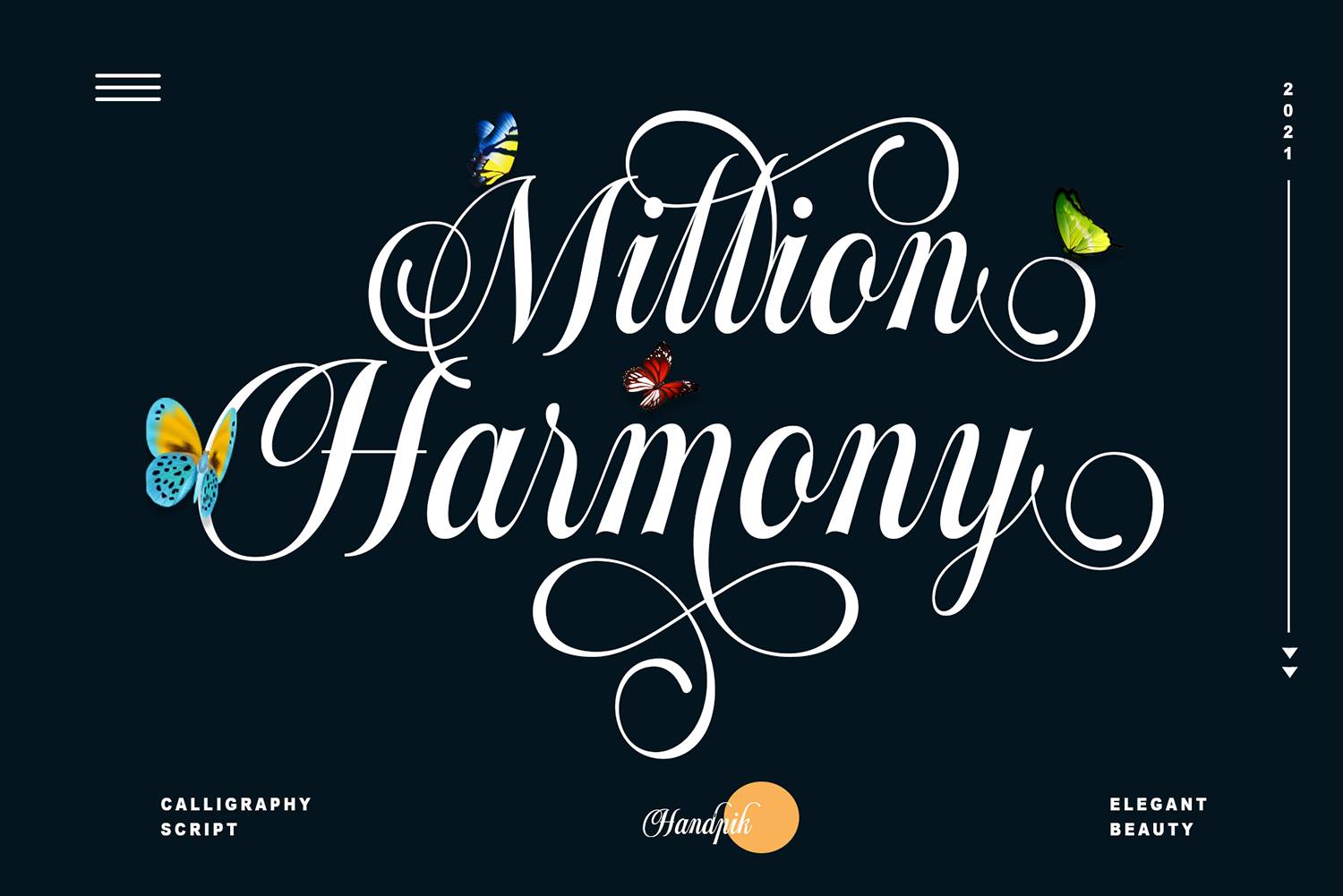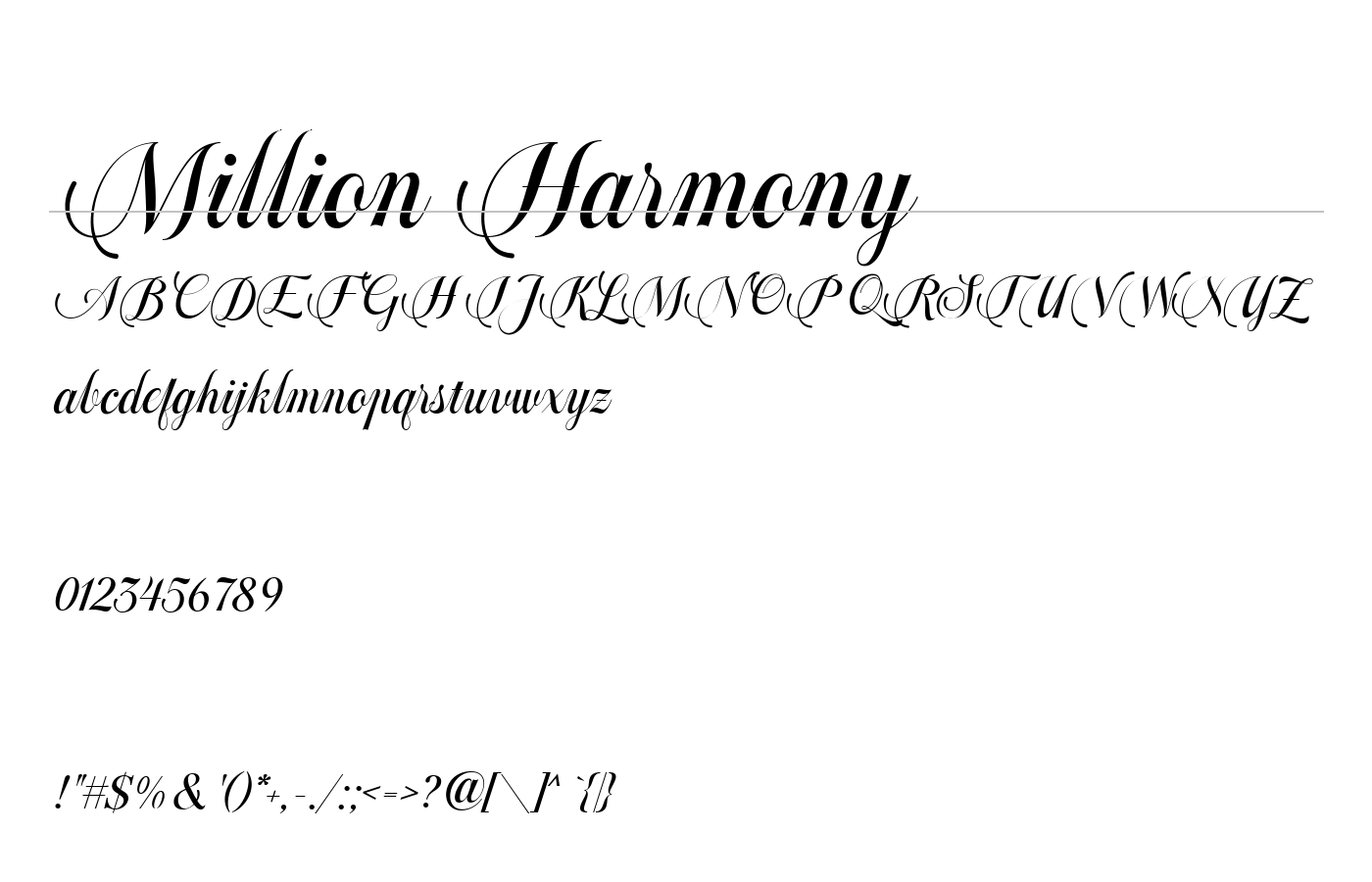
Million Harmony is an elegant script font characterized by its slender, flowing strokes and high contrast between thick and thin lines. Its refined, calligraphic style with delicate curves and graceful italic slant makes it ideal for luxury branding, wedding invitations, and sophisticated editorial designs. This font evokes a sense of classic beauty and timeless charm, perfect for projects that seek a stylish and romantic touch.
Million Harmony Font
About Million Harmony Font